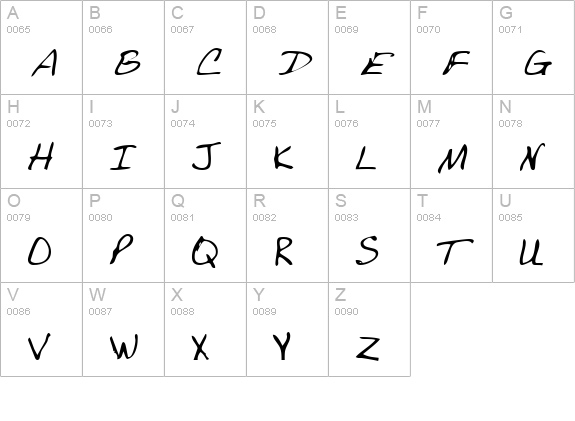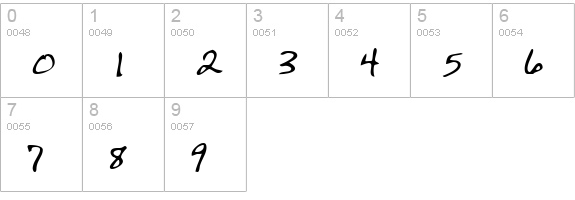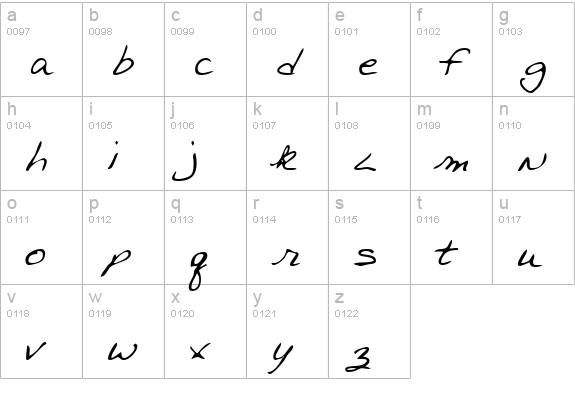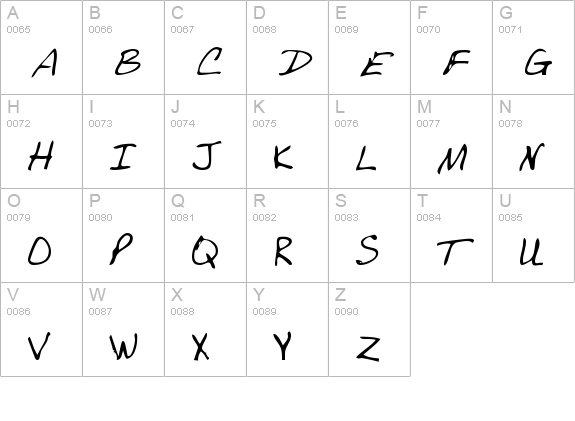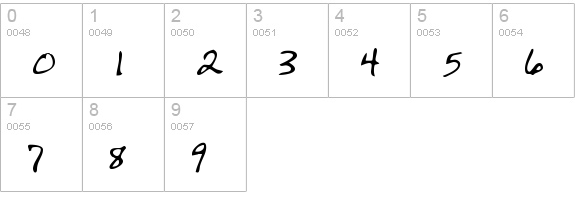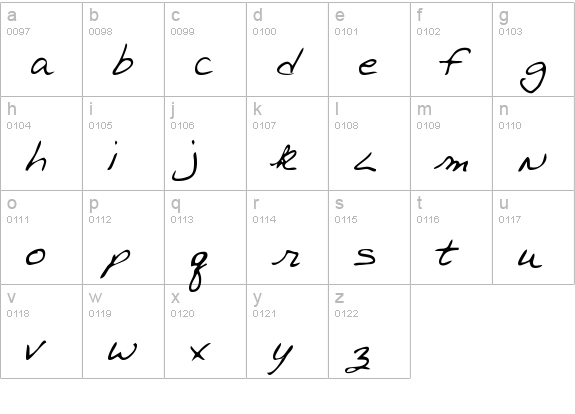
MichaelsHand Regular is the standard, neutral variant in the MichaelsHand typeface family \xE2\x80\x94 well suited to general body text, paragraphs, and standard typographic work.
MichaelsHand Regular font is a charming and versatile typeface that exudes a warm and welcoming feel. With its elegant hand-drawn style, this font is perfect for adding a personal touch to your projects. Whether you're designing invitations, greeting cards, or branding materials, MichaelsHand Regular is sure to make your creations stand out. The best part? MichaelsHand Regular font is available for free download at FontsMarket.com. That's right, you can easily access this beautiful font without any cost. So why wait? Elevate your designs with MichaelsHand Regular and let your creativity shine!